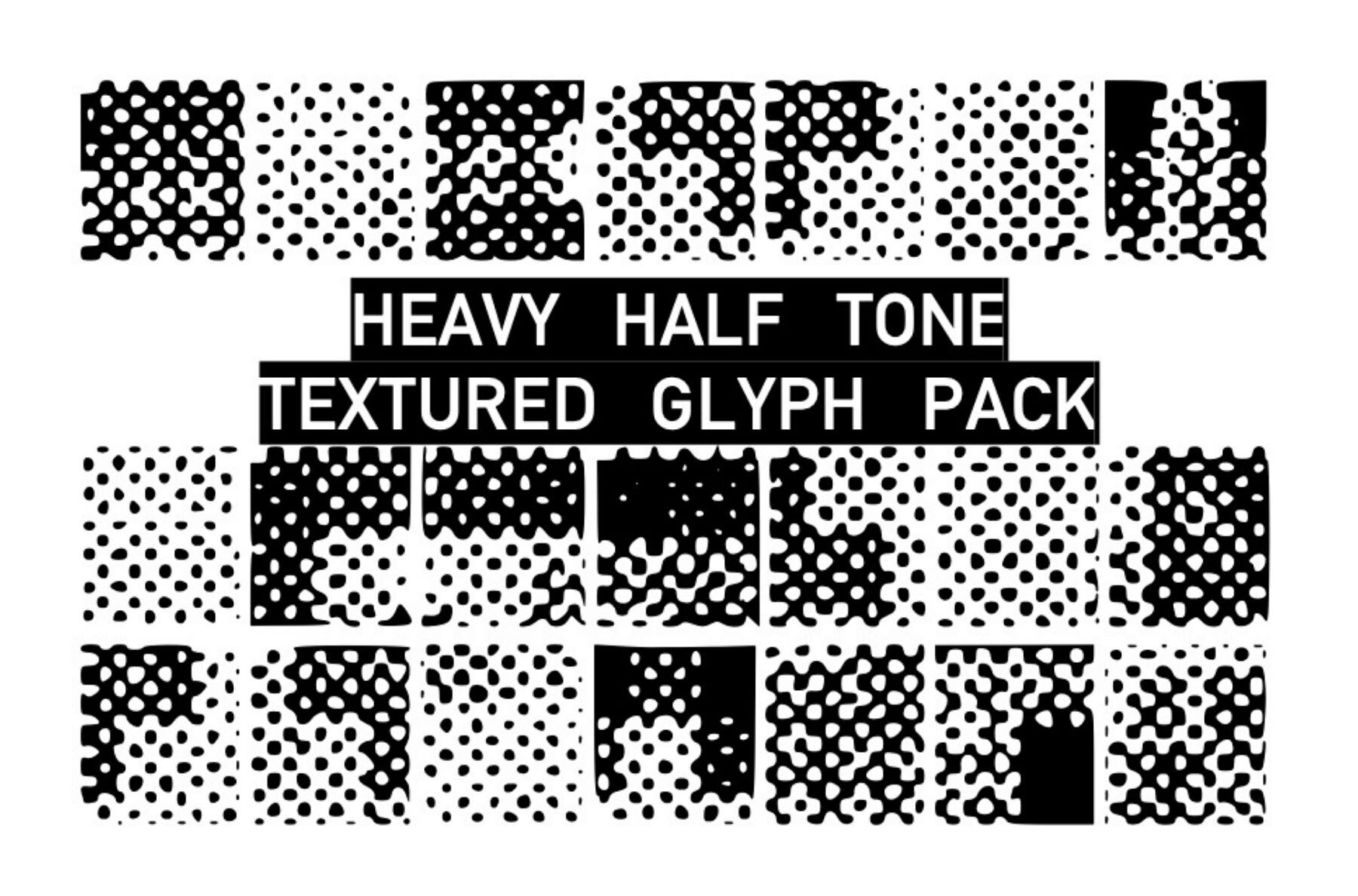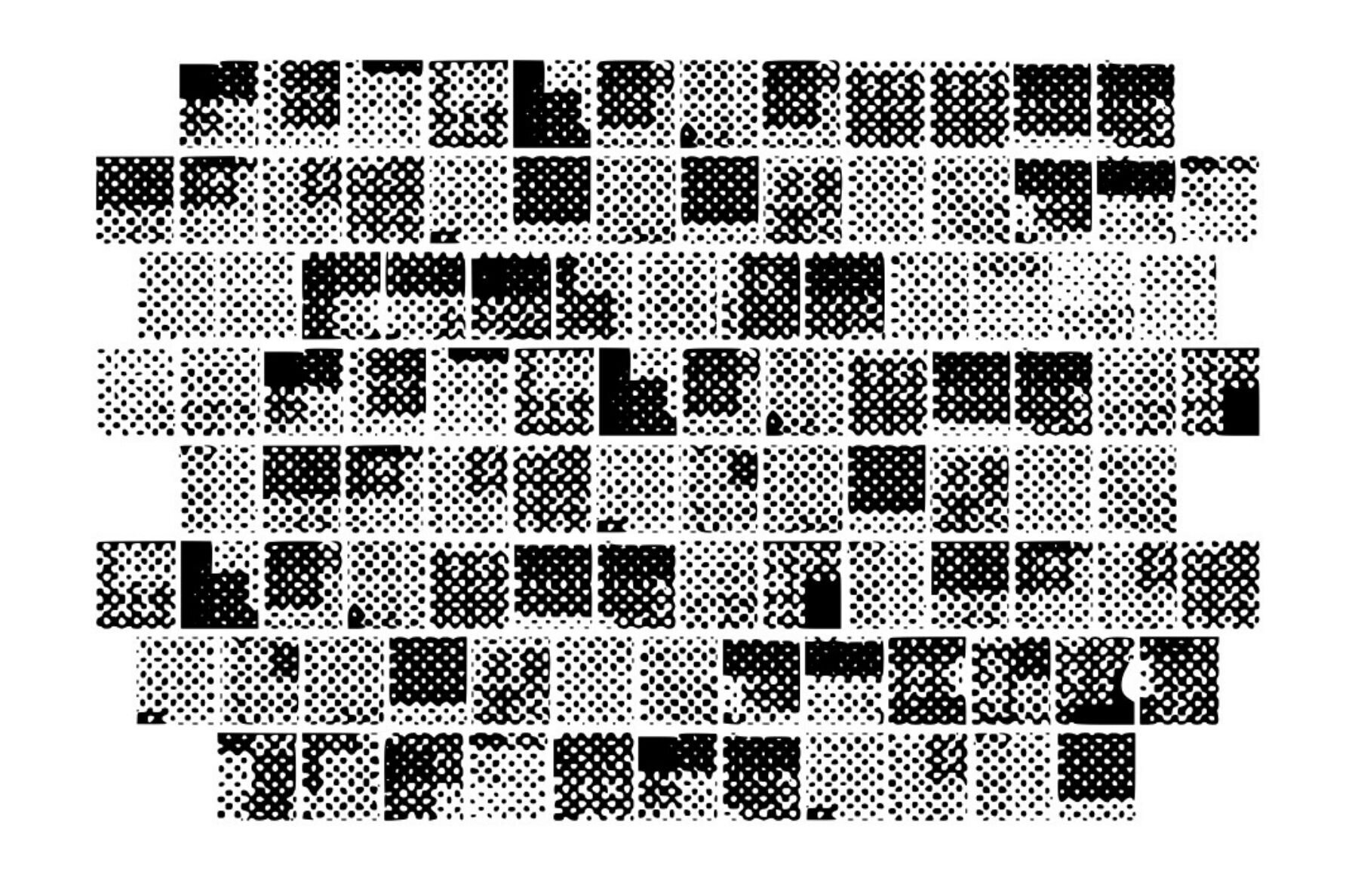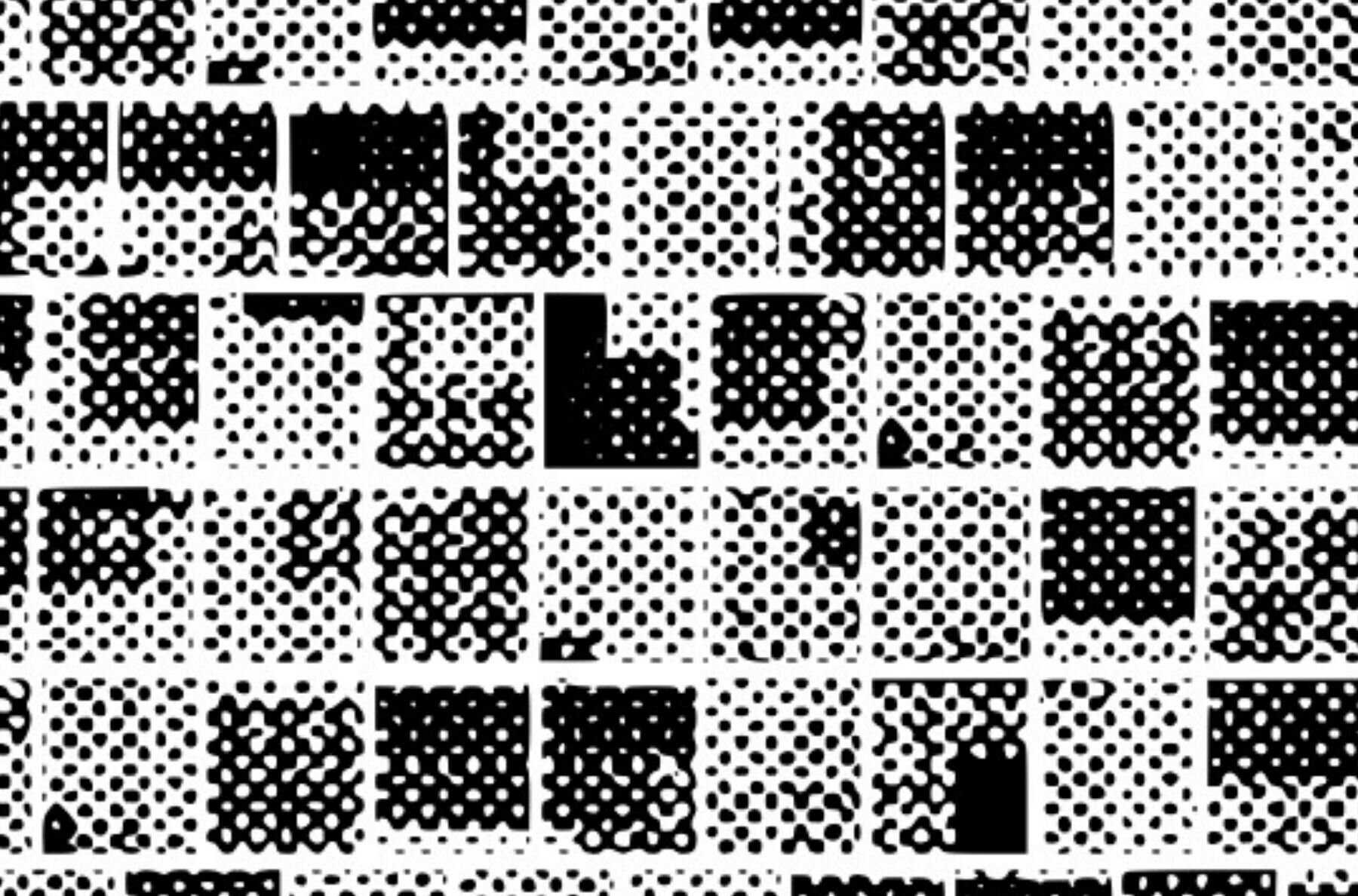
Texture Halftone Heavy Font
Texture Glyph Halftone Heavy
Explore the dynamic possibilities of Texture Halftone Heavy by Graphics Bam. This expansive collection of large halftone textures is an indispensable resource for any design or craft project, providing depth and visual interest with every glyph.Texture Halftone Heavy Texture Glyphs